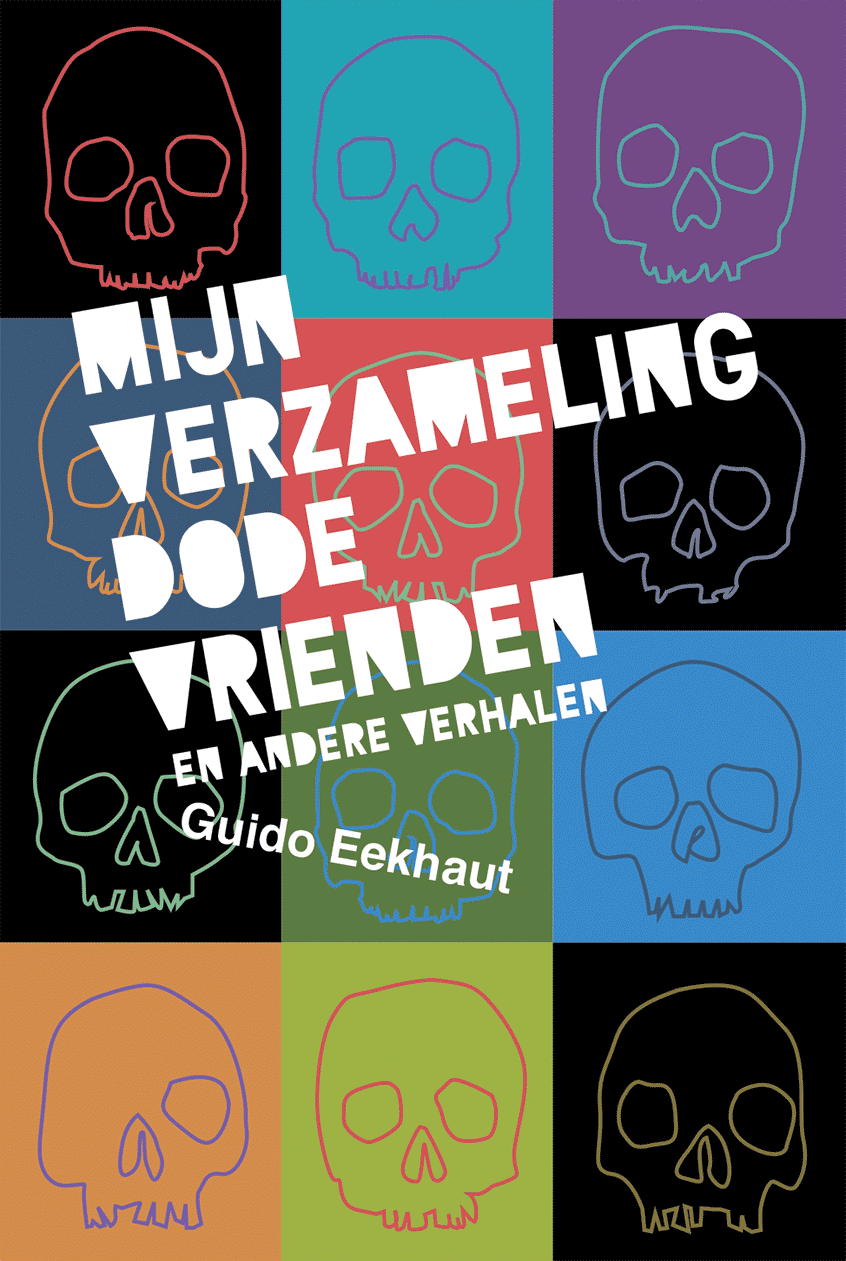
[2024] A font with a great contrast between the black areas and the strokes. It was inspired by fonts like Blackout, Hard Questions, Full Circle, Full Moon On Mars, ... which I did not like to use for the cover of a book by Guido Eekhaut. The result is my own version of this type of font.